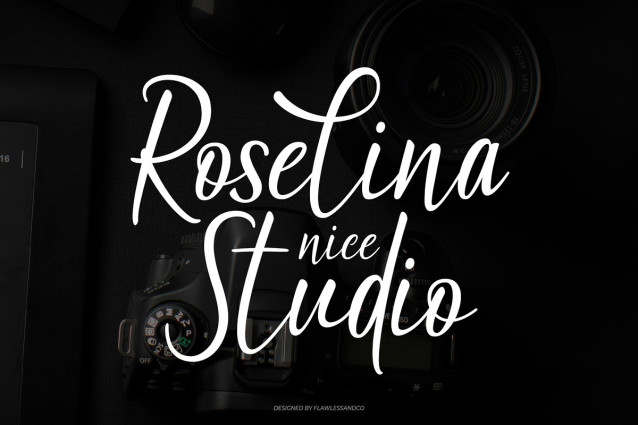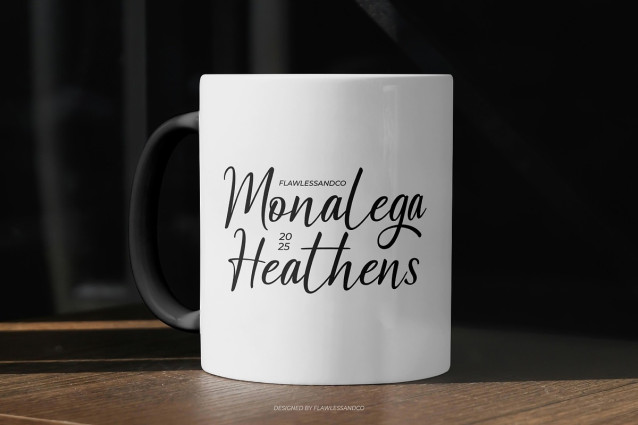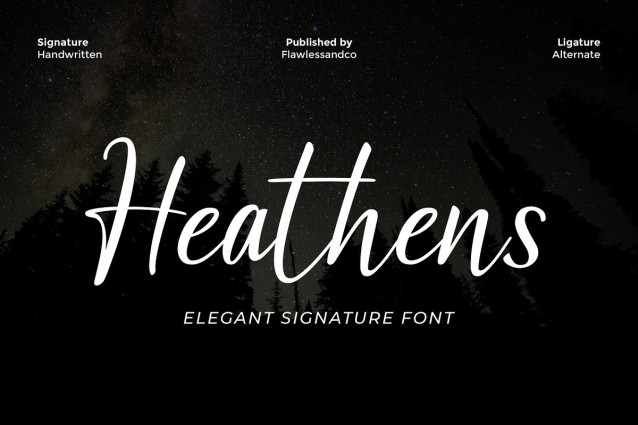
Heathens Handwriting Font
Heathens Handwriting Font is an elegant handwritten signature font designed to bring a natural, personal, and luxurious feel to your designs. With smooth strokes, graceful curves, and a flowing handwritten character, this font delivers a refined yet authentic signature style that feels timeless and expressive. Perfect for designers who want to create a strong emotional connection, Heathens works beautifully for branding projects that require elegance, intimacy, and sophistication. Its handwritten charm makes every word feel personal, stylish, and effortlessly premium.